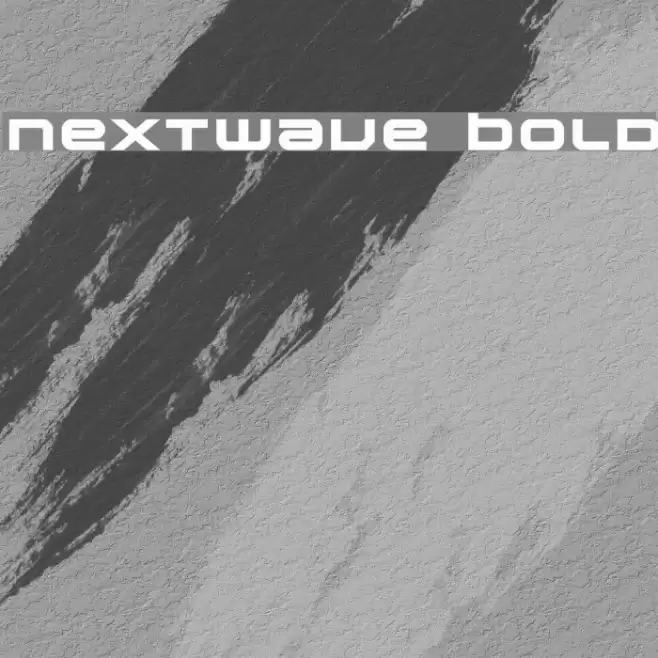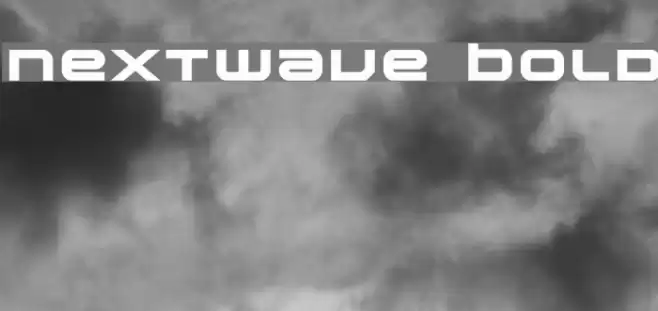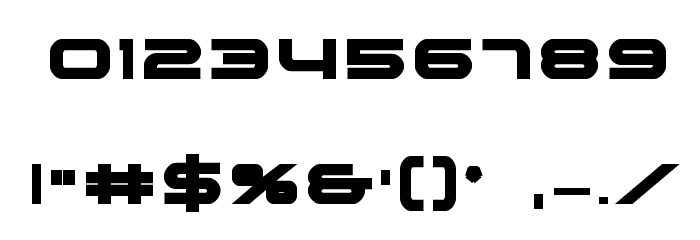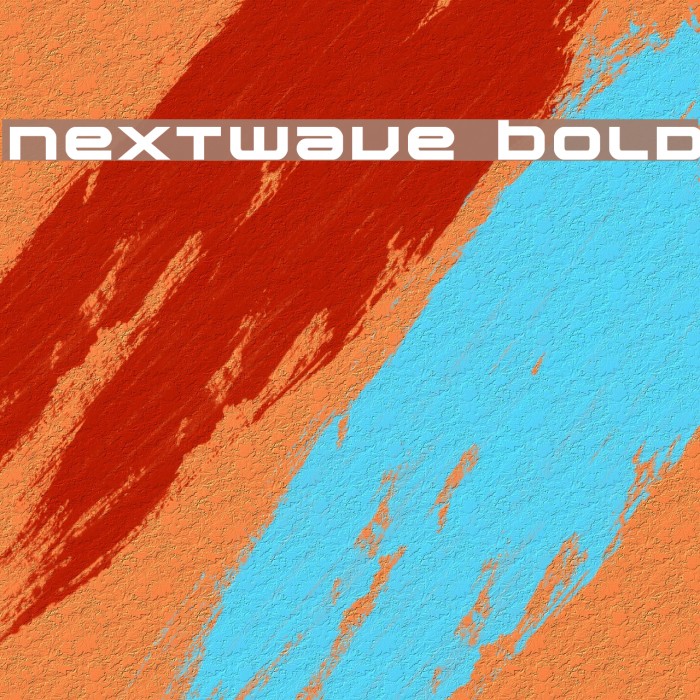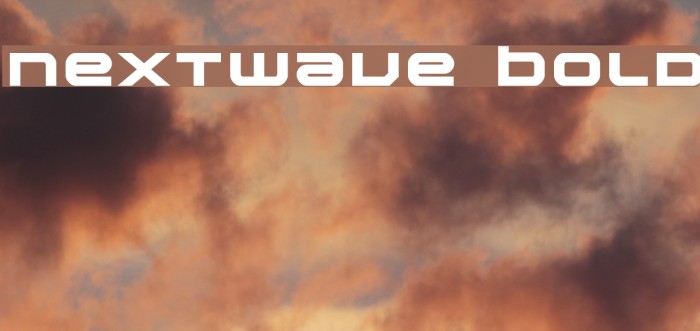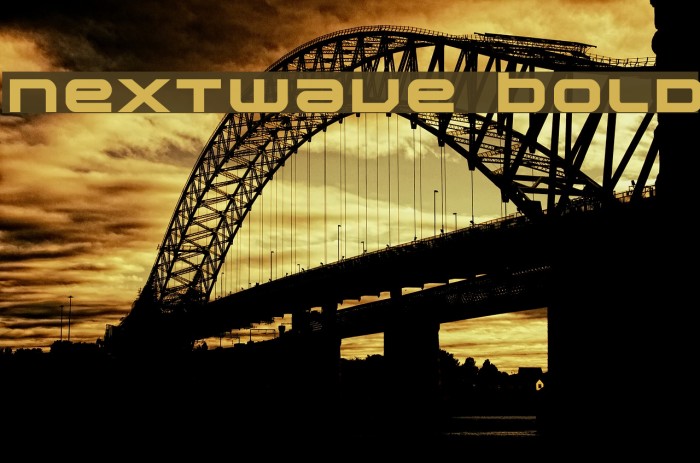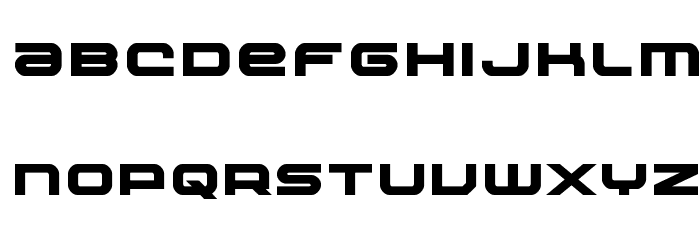
Nextwave Bold Font
Nextwave Bold Description
This font features a futuristic and bold design, characterized by its geometric and angular shapes. The letters are uniform in height, with a consistent stroke width that gives it a modern and streamlined appearance. The uppercase and lowercase letters maintain a cohesive style, with rounded edges that soften the otherwise sharp and mechanical look. The numerals and special characters follow the same design principles, ensuring a harmonious overall aesthetic. This font is ideal for projects that require a contemporary and tech-savvy feel.
A bold, futuristic font with geometric and angular shapes from Uncategorized fonts.
- Proposed Projects: Ideal for technology branding, sci-fi movie posters, video game titles, and modern digital interfaces.